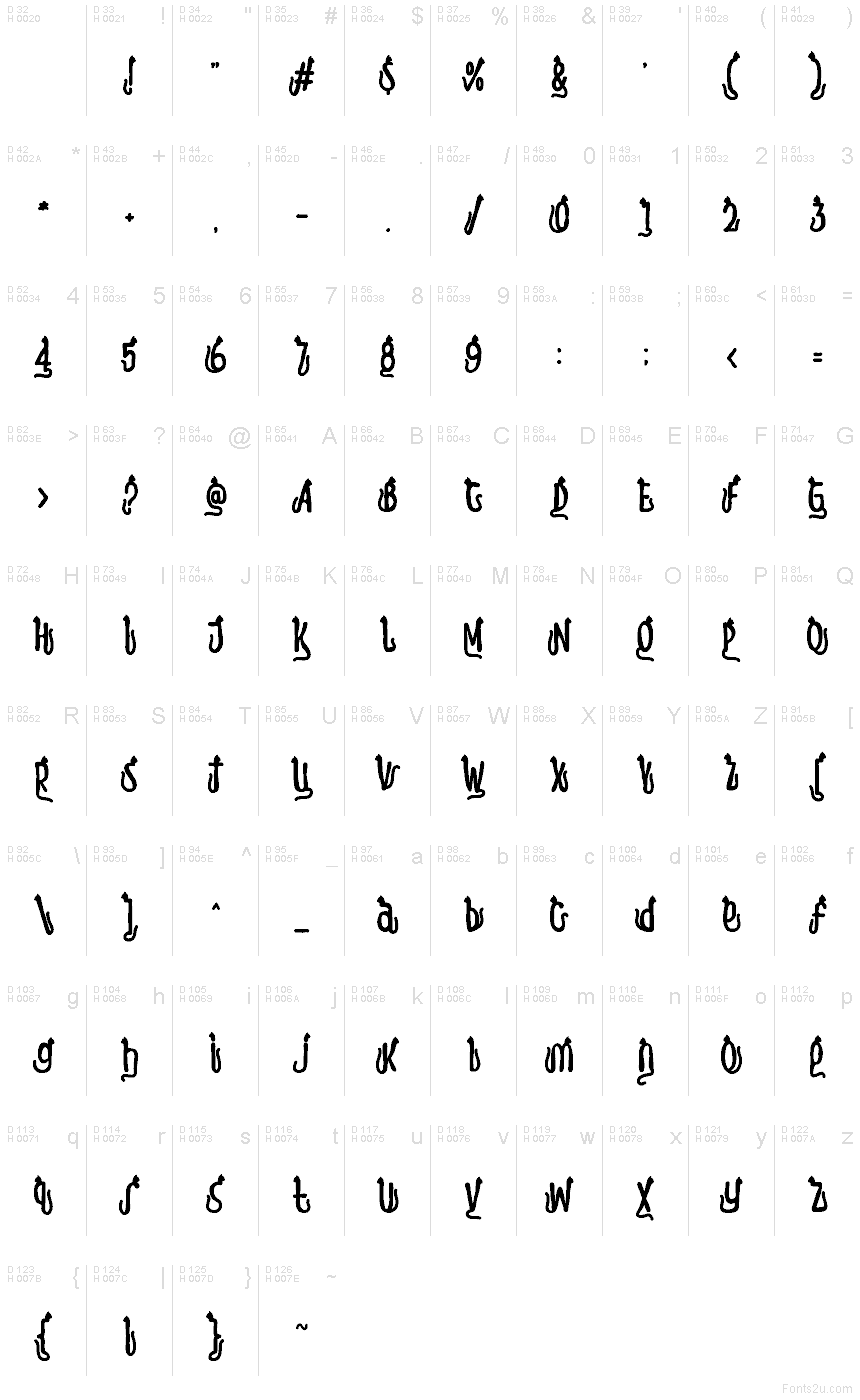
Meow Zilla Cat 1
Meow Zilla Cat 1 font by PutraCetol Studio is a free playful decorative display font. Part of the Meow Zilla family, it stands out with inky, hand-drawn strokes that curl into tail-like terminals and tiny ear flicks, giving every word a mischievous, cat‑ish bounce. The narrow, upright forms and soft wobble create a lively rhythm that reads clearly while keeping the whiskery charm up front.
Using Meow Zilla Cat 1, headlines pounce on pet shop logos, kids’ book covers, birthday invites, classroom posters, animal shelter campaigns, stickers, and treat packaging. This free font shines at larger sizes where its textured curves stay crisp; pair it with a clean rounded sans for body copy to balance the playful energy.